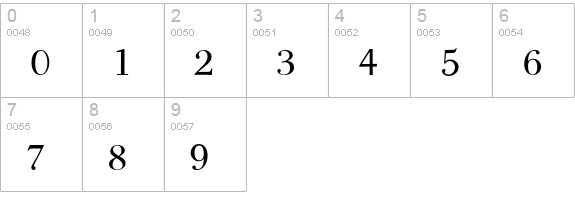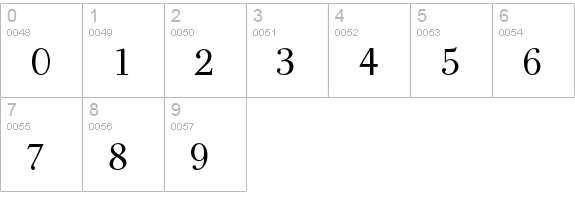
PFBodoniText Regular is the standard, neutral variant in the PFBodoniText typeface family \xE2\x80\x94 well suited to general body text, paragraphs, and standard typographic work.
PFBodoniText Regular font is a timeless classic that exudes elegance and sophistication. With its graceful letterforms and refined serifs, this font is perfect for adding a touch of sophistication to any design project. Whether you're working on a wedding invitation, a business card, or a branding project, PFBodoniText Regular font will elevate your work to the next level. The best part is that PFBodoniText Regular font is available for free download at FontsMarket.com. This means you can easily access this exquisite font without any cost, making it a valuable addition to your font library. Don't miss out on the opportunity to enhance your designs with the beauty and charm of PFBodoniText Regular font – download it today and let your creativity shine!